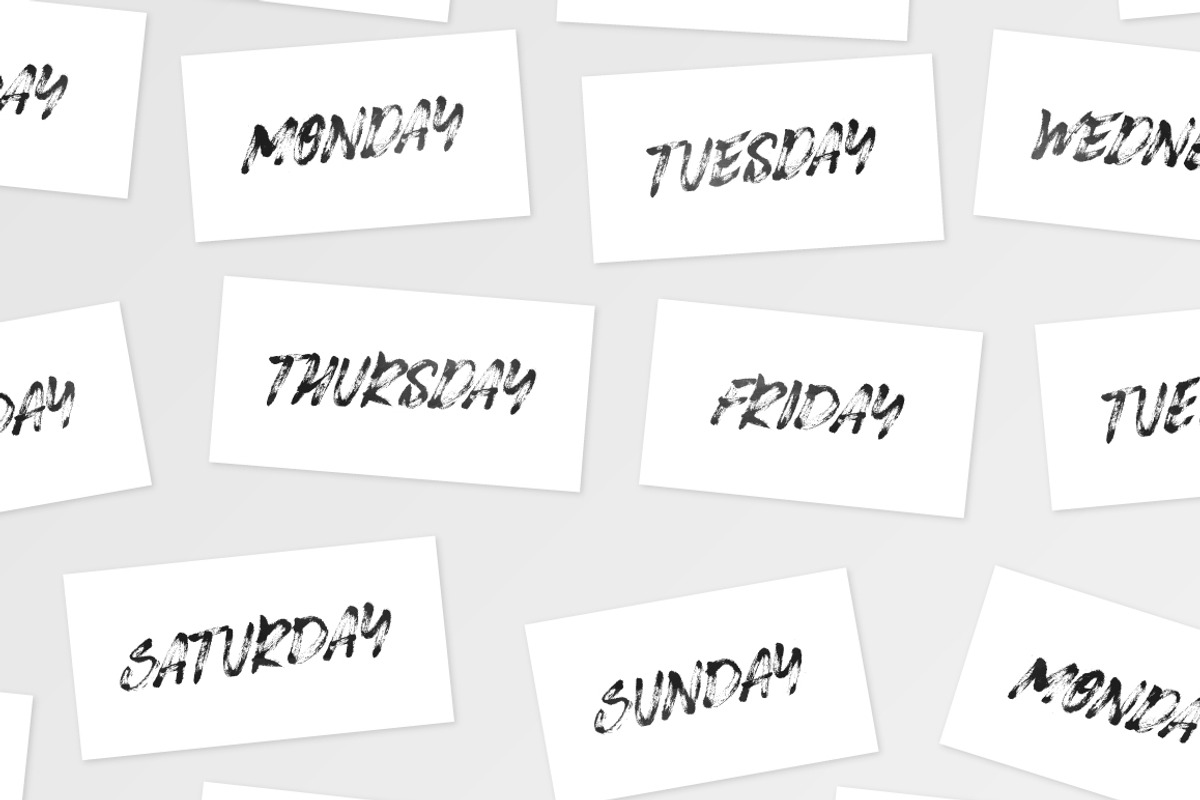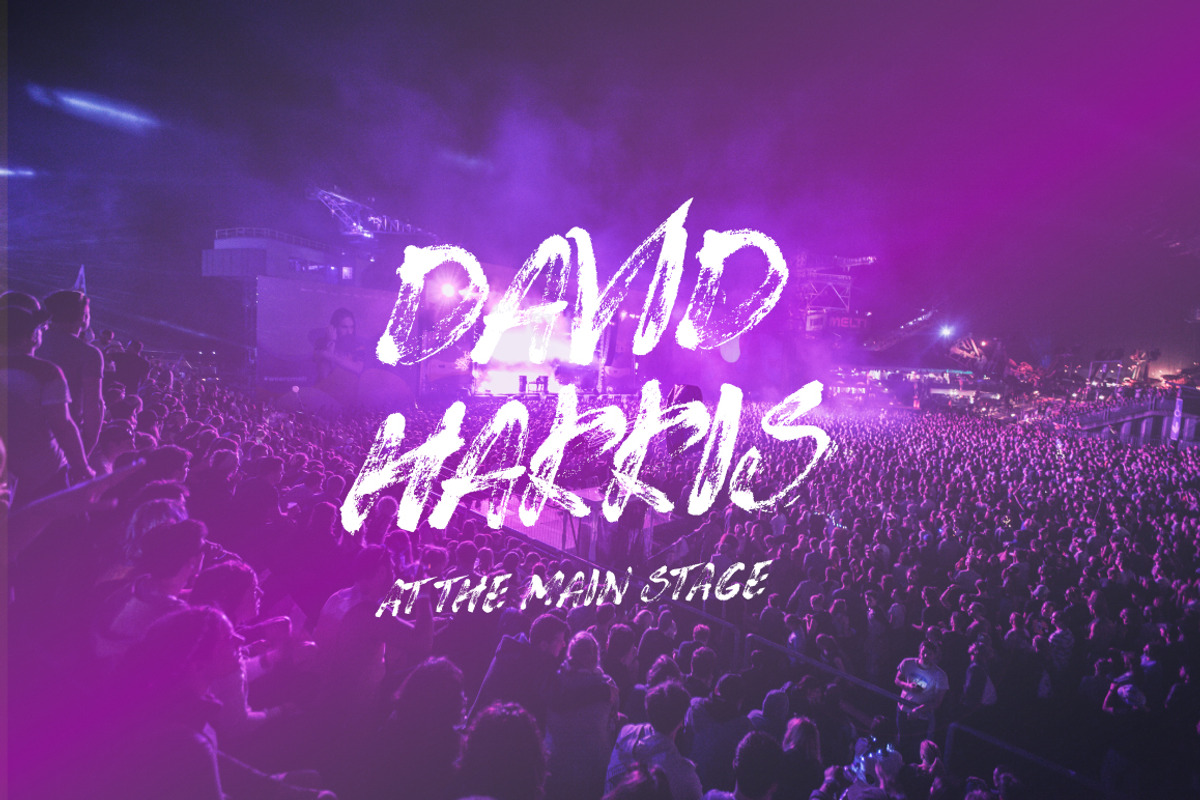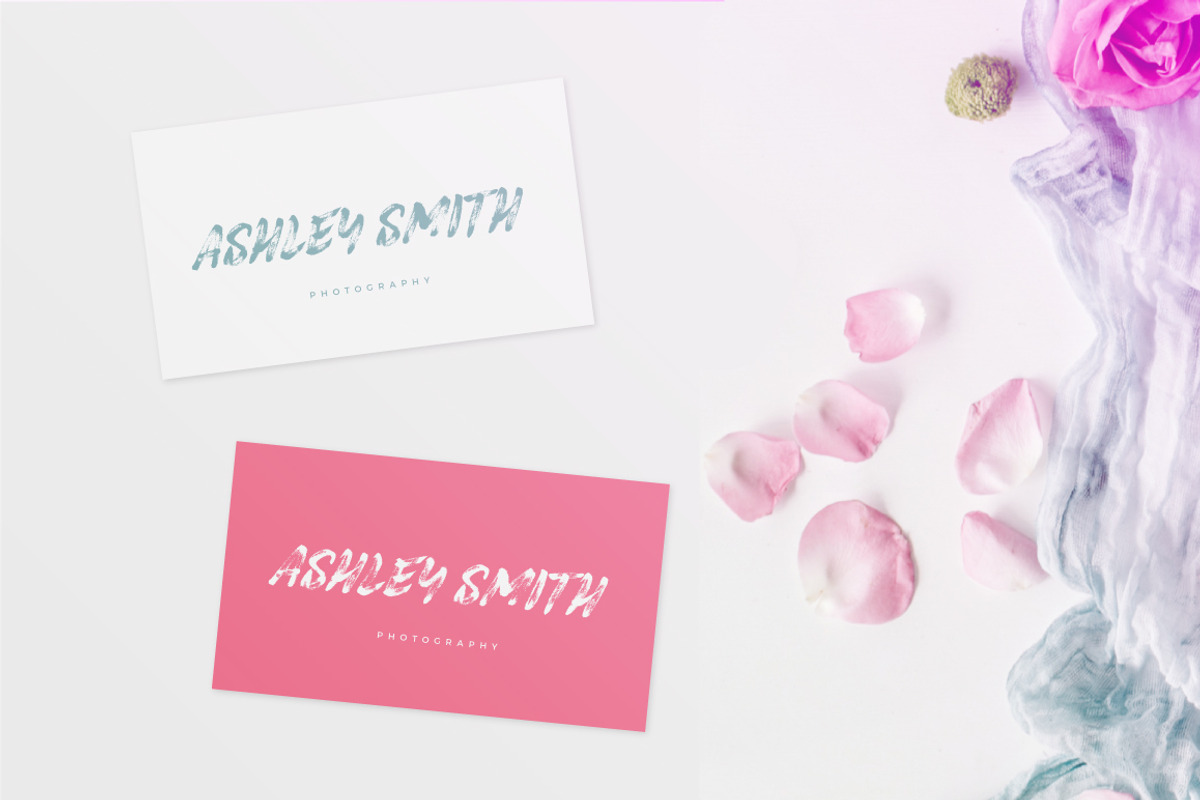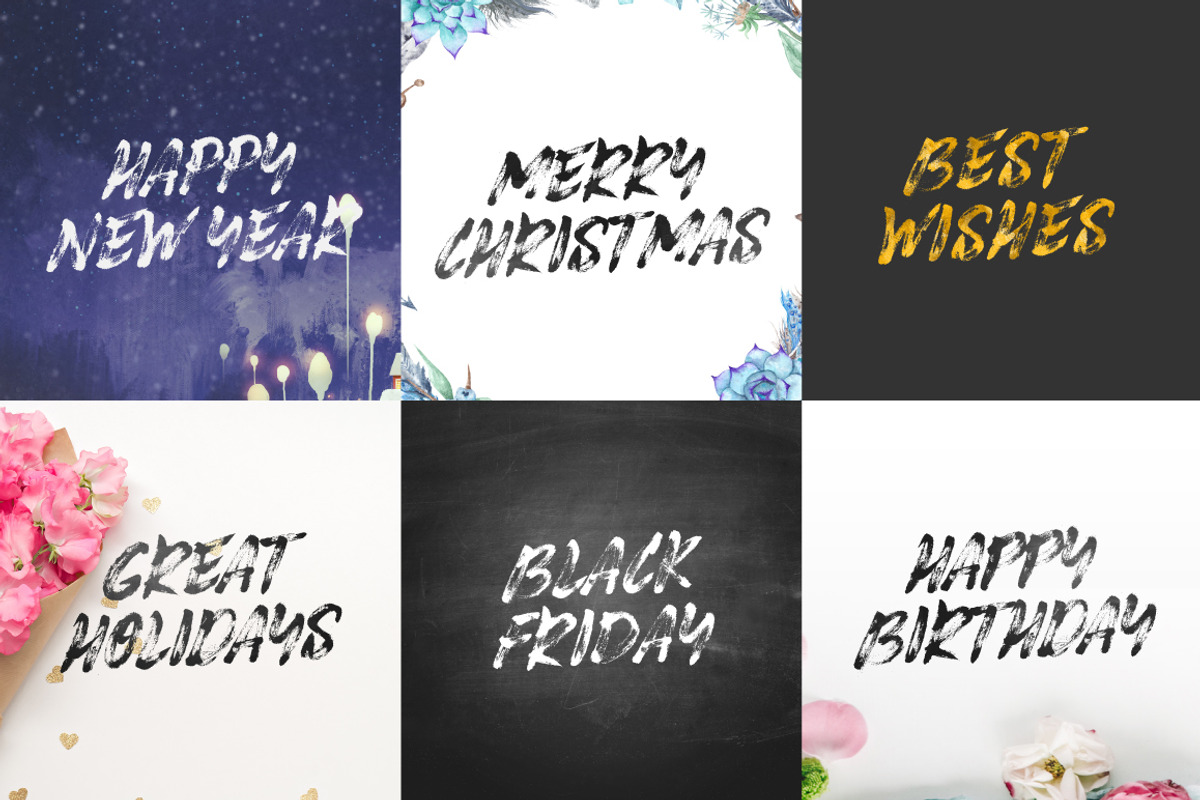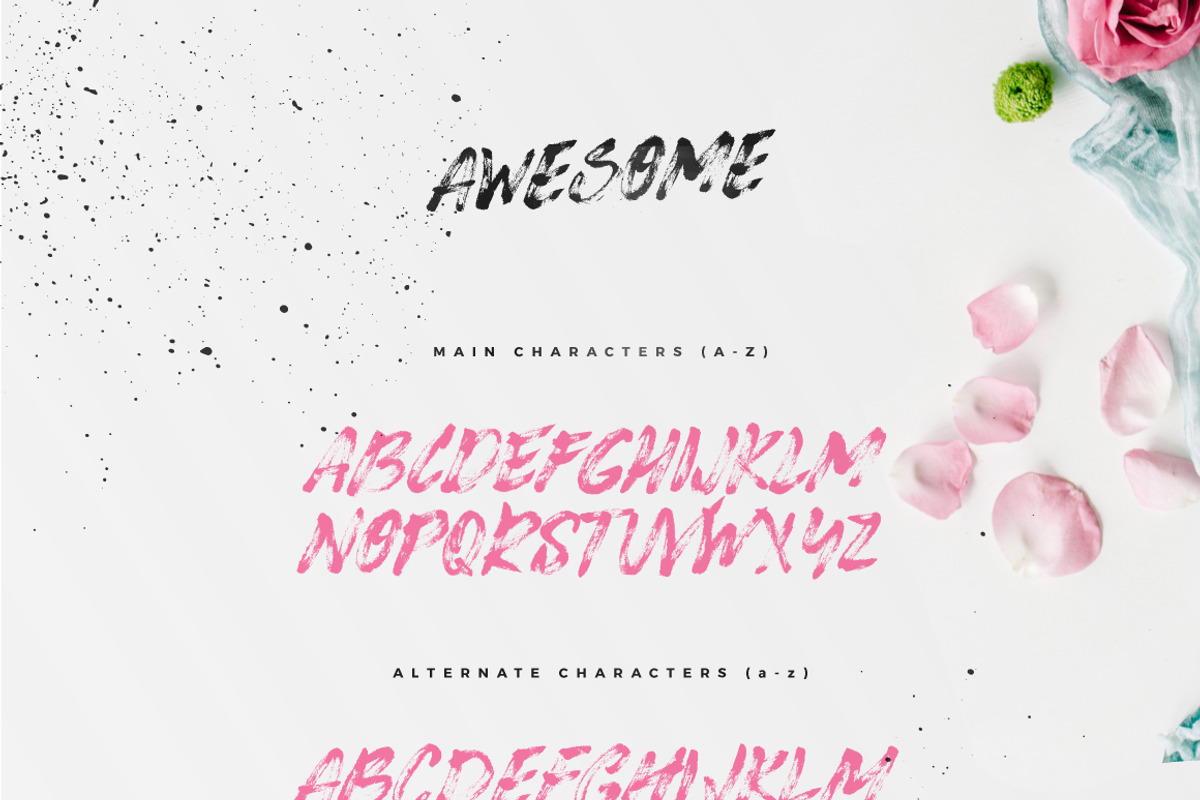
Awesome Typeface
Awesome Typeface by Mats-Peter Forss is a font selected for branding, posters, packaging, typography.
- It's an super-modern typeface with a perfect texture from a real brush pen, alternate characters and slightly oblique touch.
- With its alternate characters you'll instantly get the authentic handmade look to it.
- Including: Awesome with Alternates- Upper and lowercase characters, numerals, punctuations and a wide language support.
Why Awesome Typeface is worth a look
Awesome Typeface by Mats-Peter Forss fits naturally into Branding, posters, packaging, typography.